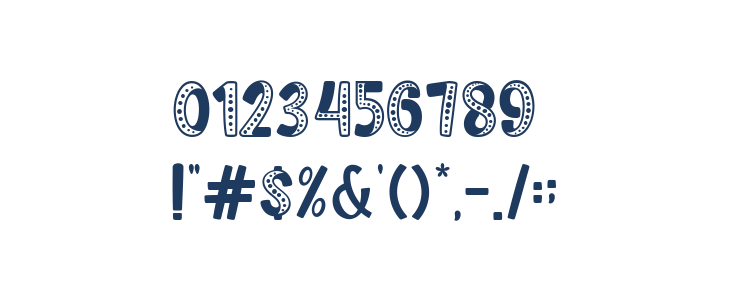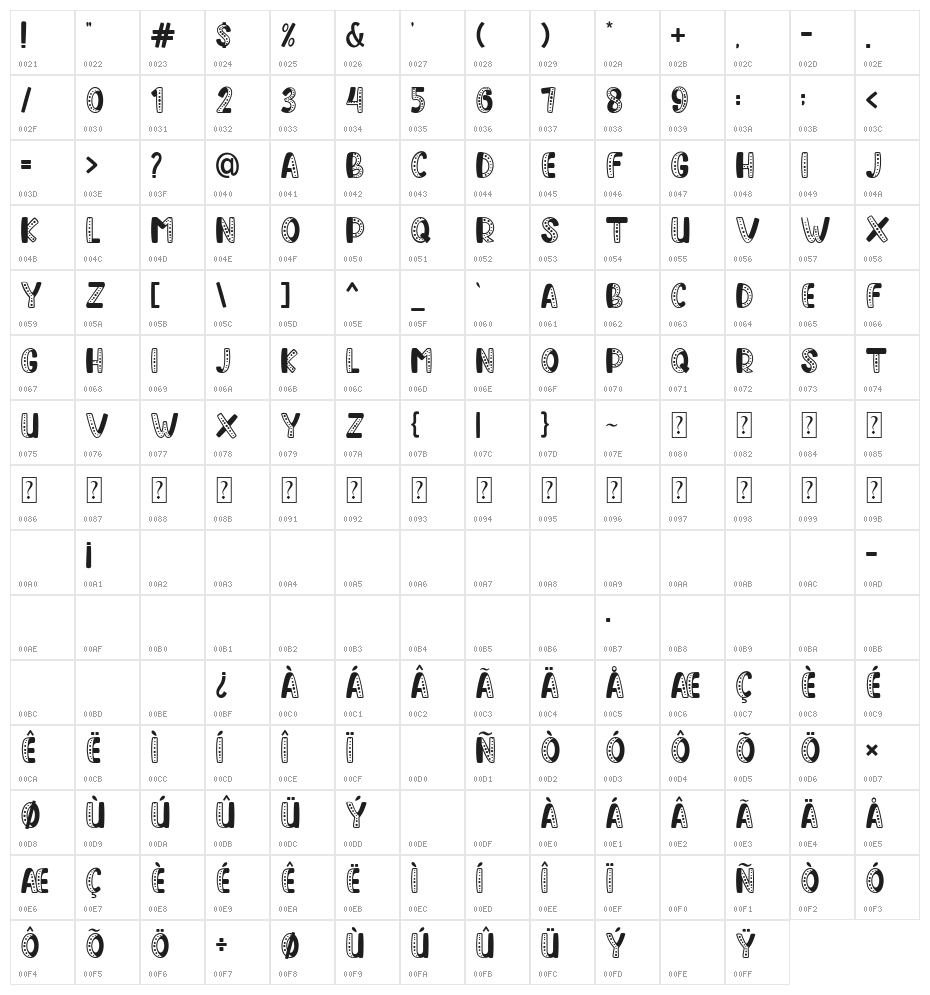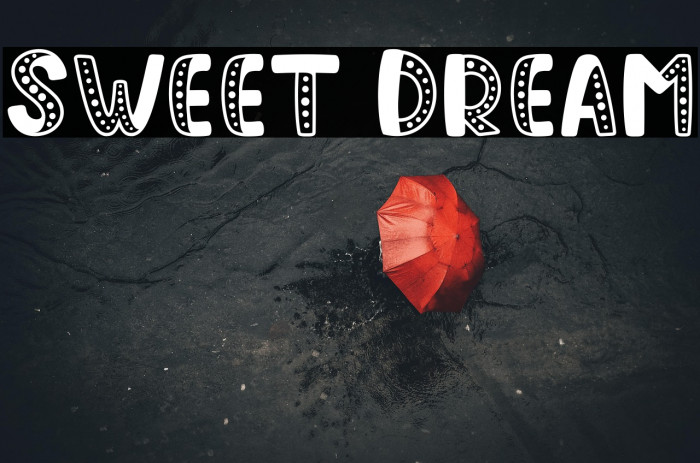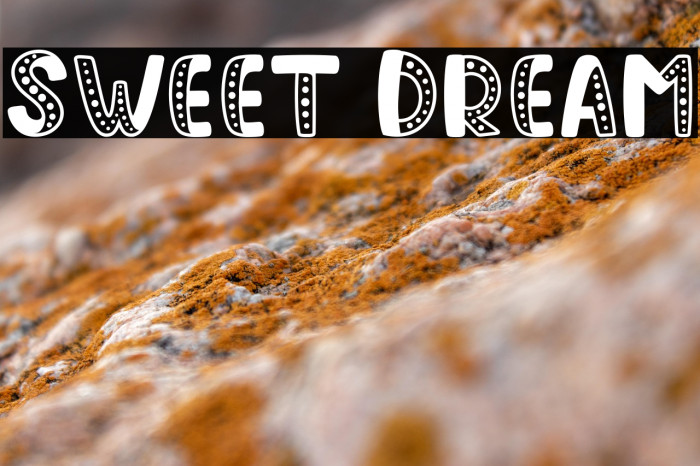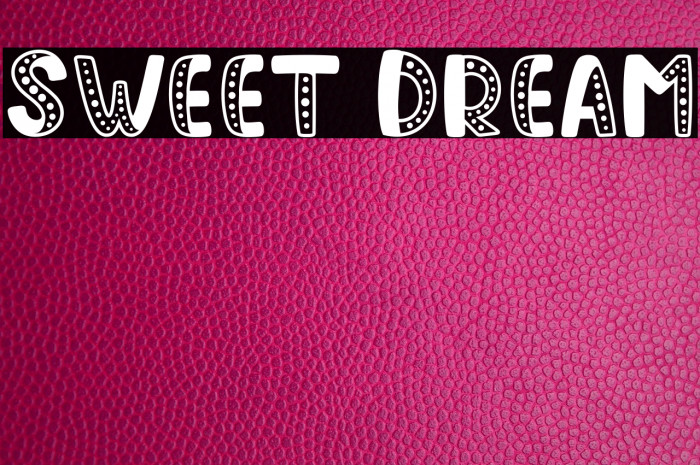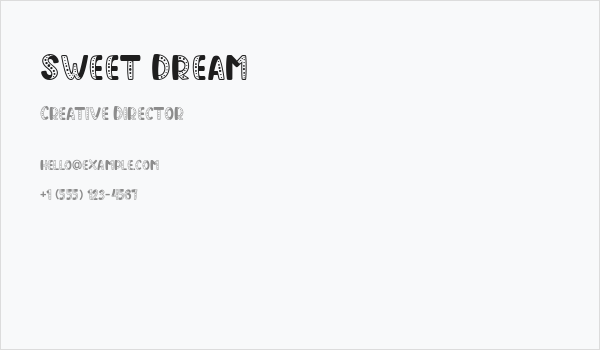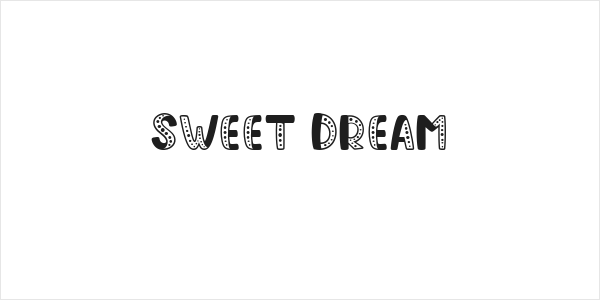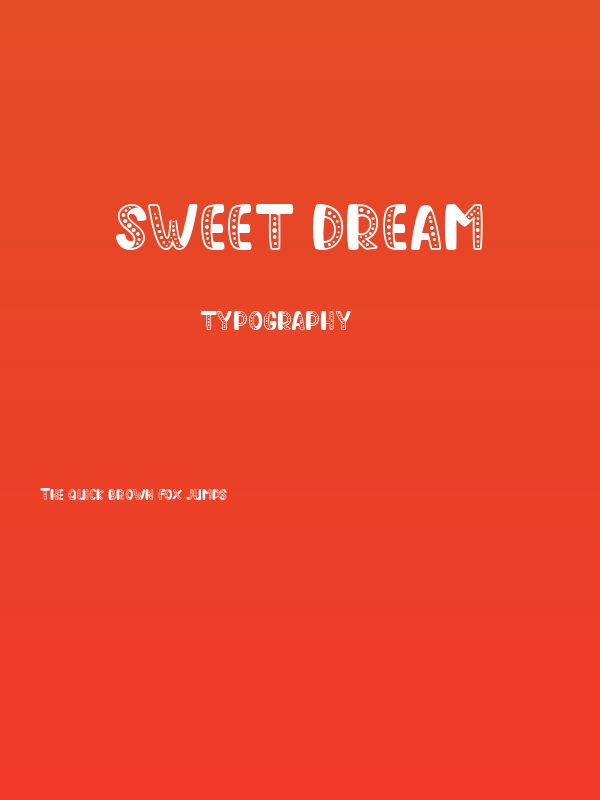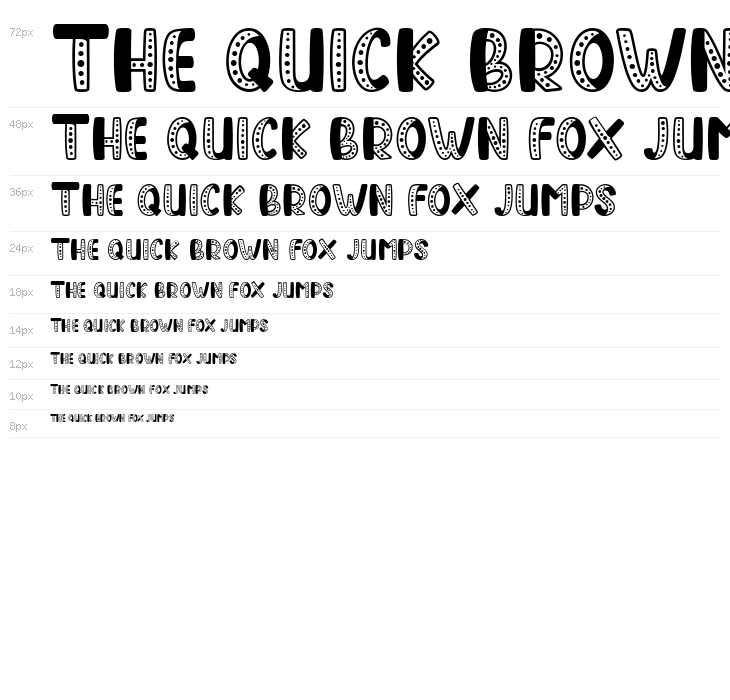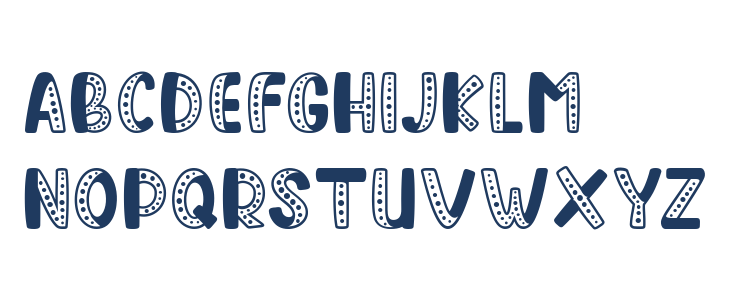
Sweet Dream Font
Sweet Dream Description
This playful and whimsical font features bold, rounded characters with a unique dotted pattern inside each letter. The design is reminiscent of a fun, cartoonish style, making it perfect for projects that require a lighthearted and cheerful touch. The uppercase and lowercase letters maintain a consistent style, with numbers and special characters following suit. The font's decorative elements add a sense of movement and energy, making it stand out in any design. Its boldness ensures readability while the dotted accents provide a distinctive flair.
Overall StylePlayful, Whimsical
Proposed ProjectsIdeal for children's books, playful branding, party invitations, and creative posters.